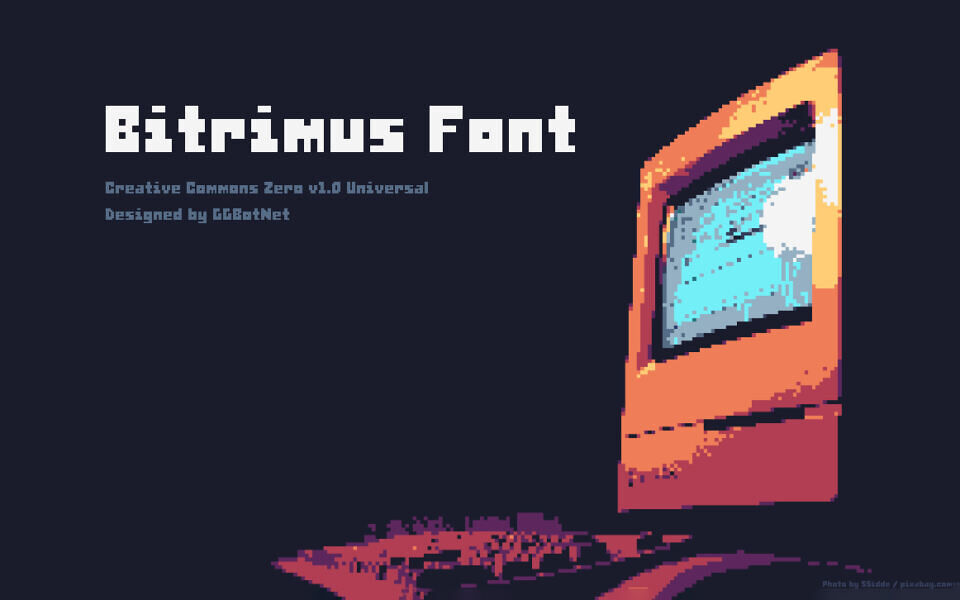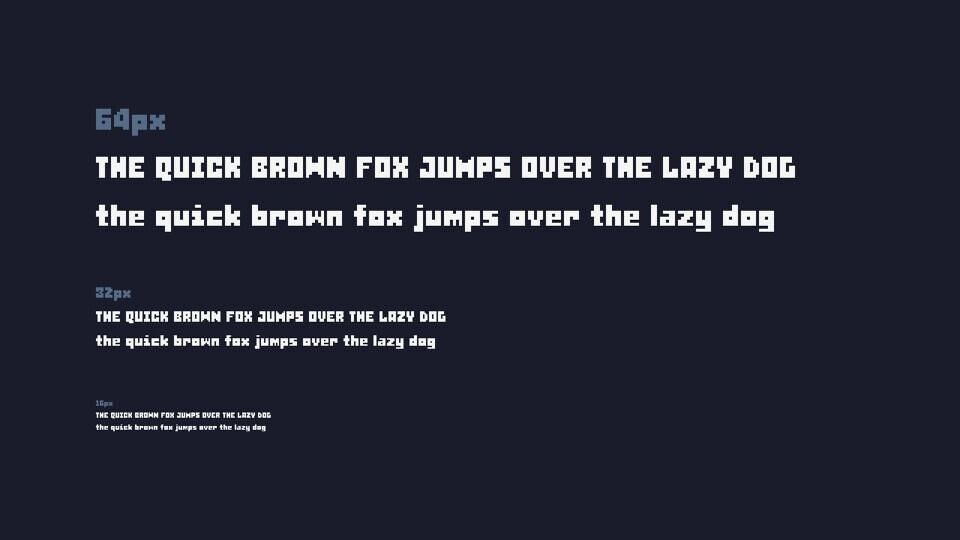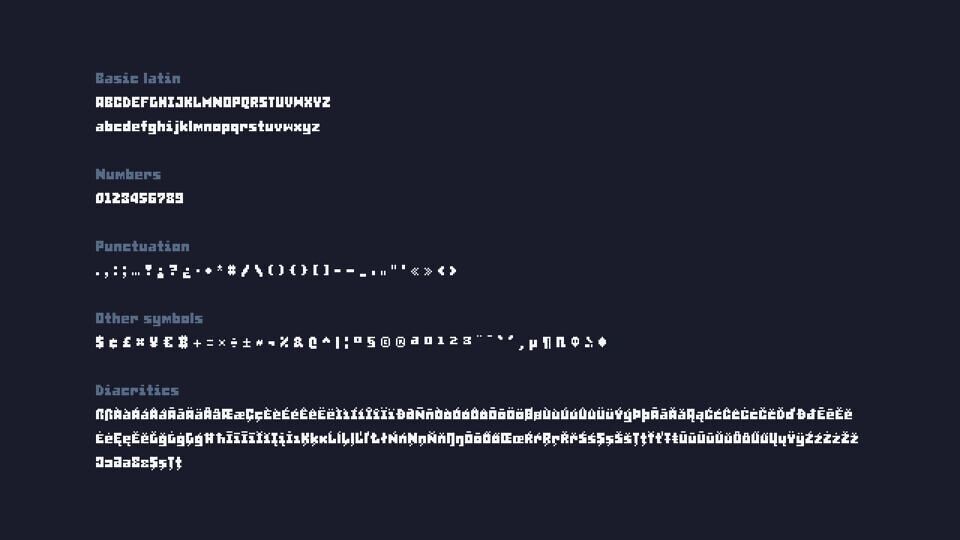
Bitrimus is a bold, retro‑inspired pixel font designed by GGBotNet, offering 335 glyphs and support for 40 languages. Crafted for sizes like 16–256 px, its blocky, 8‑bit aesthetic evokes classic gaming and digital nostalgia.
Perfect for titles, UI, posters, or anywhere you want a playful yet structured pixel style with wide language coverage and zero licensing headaches.